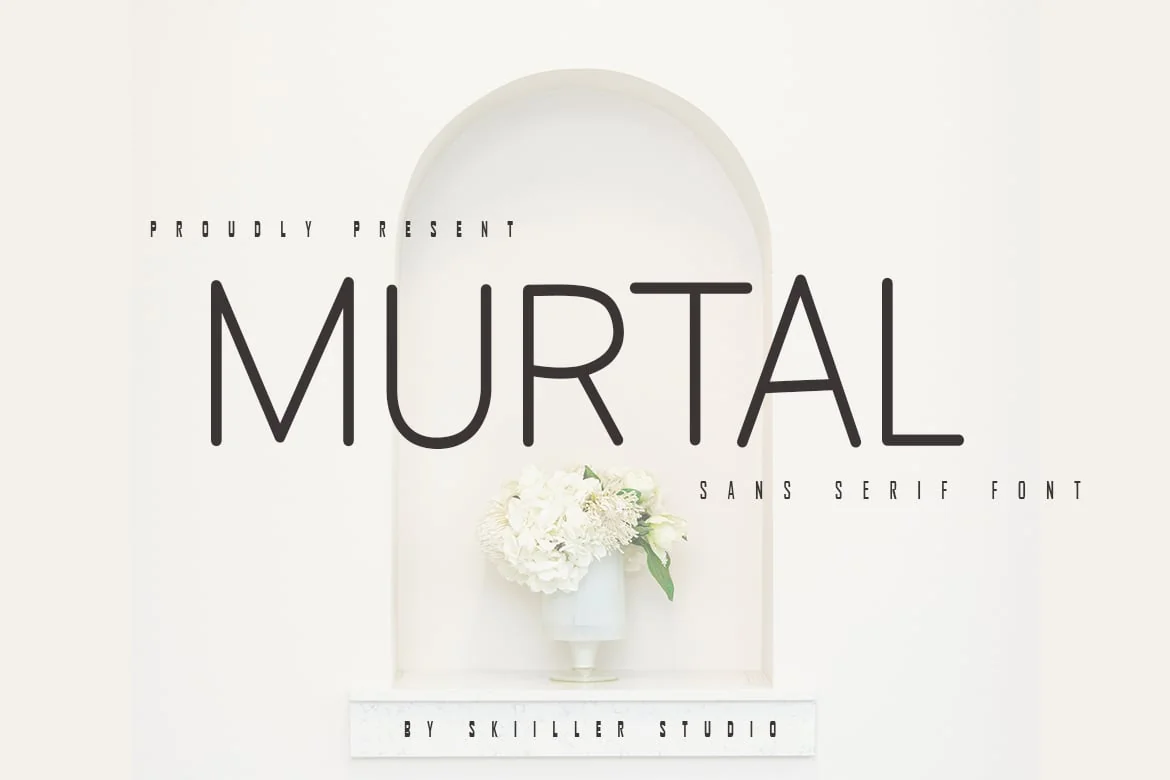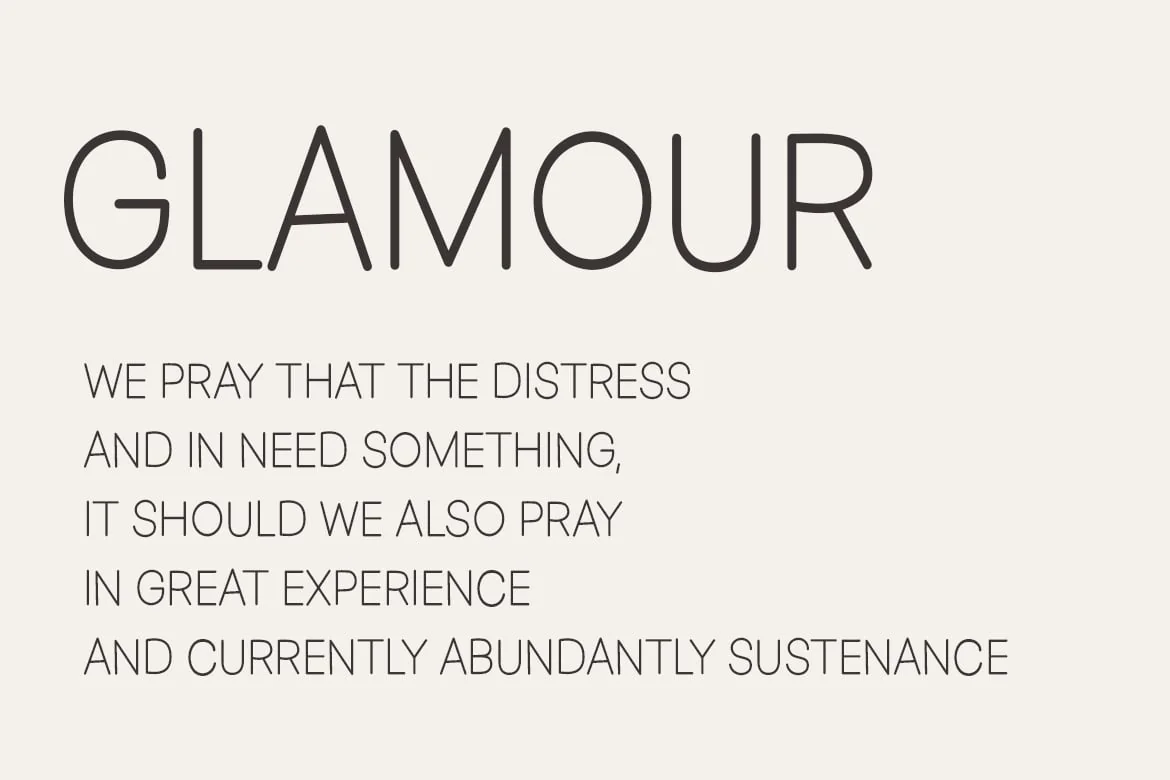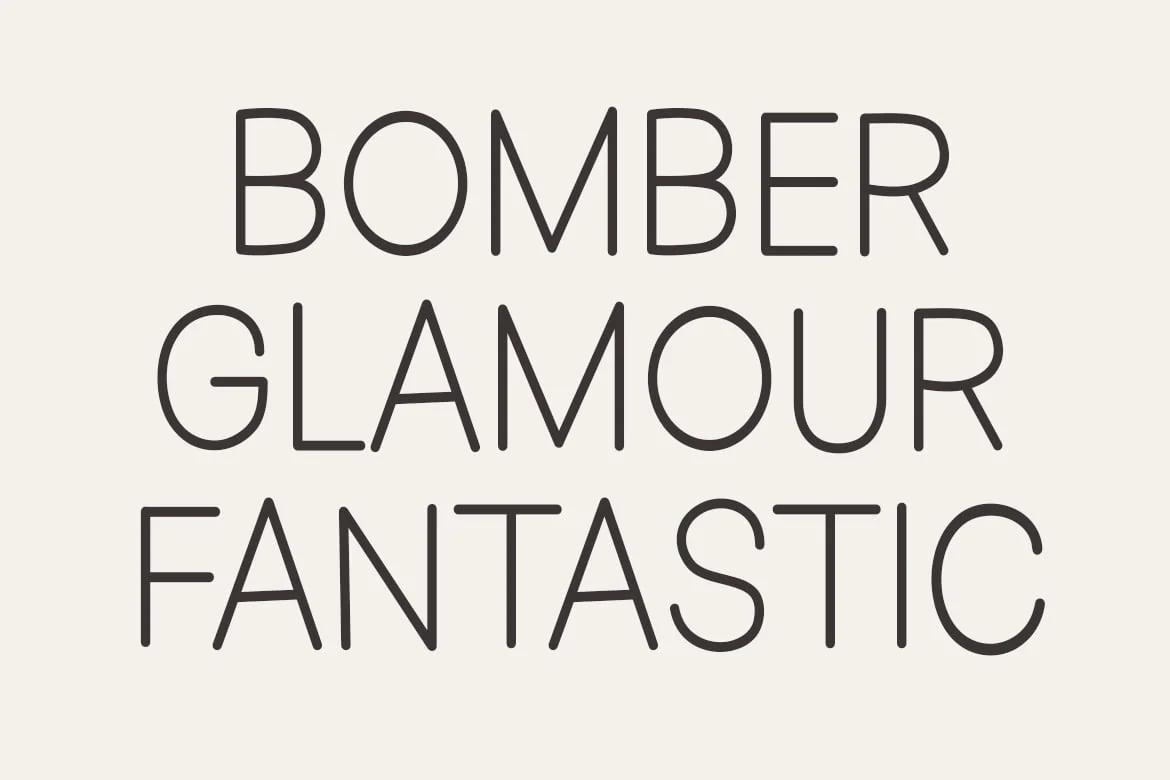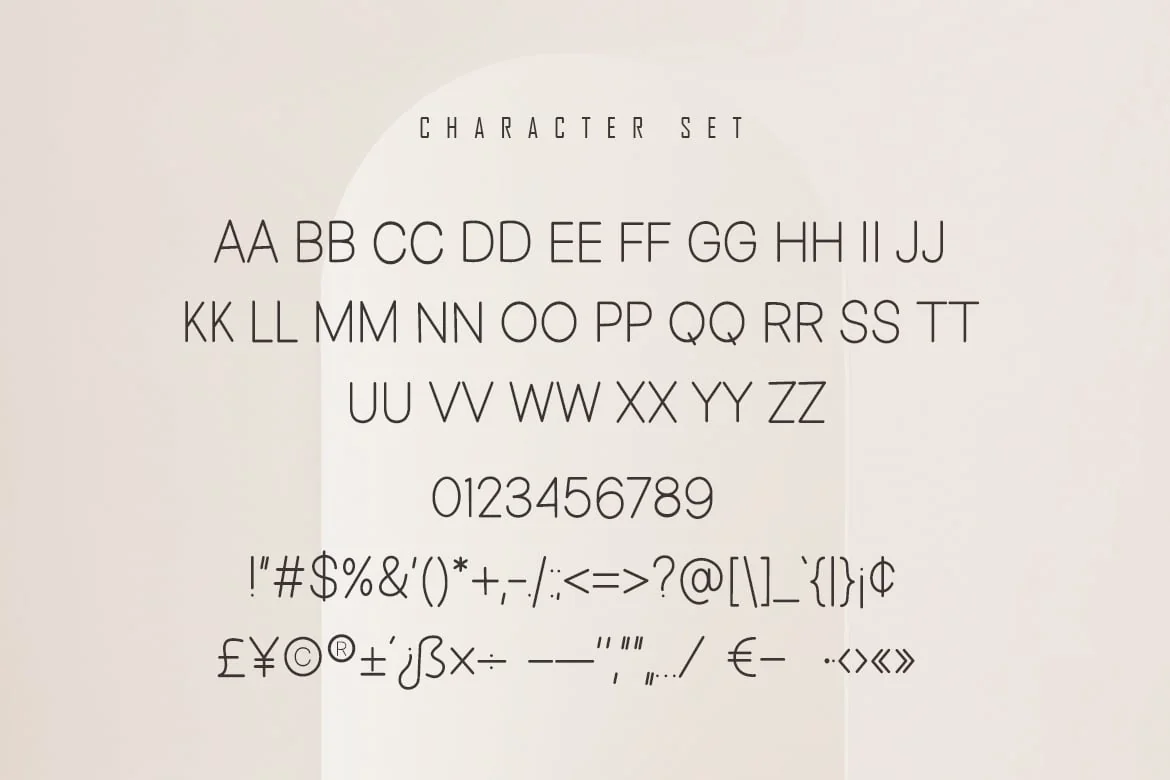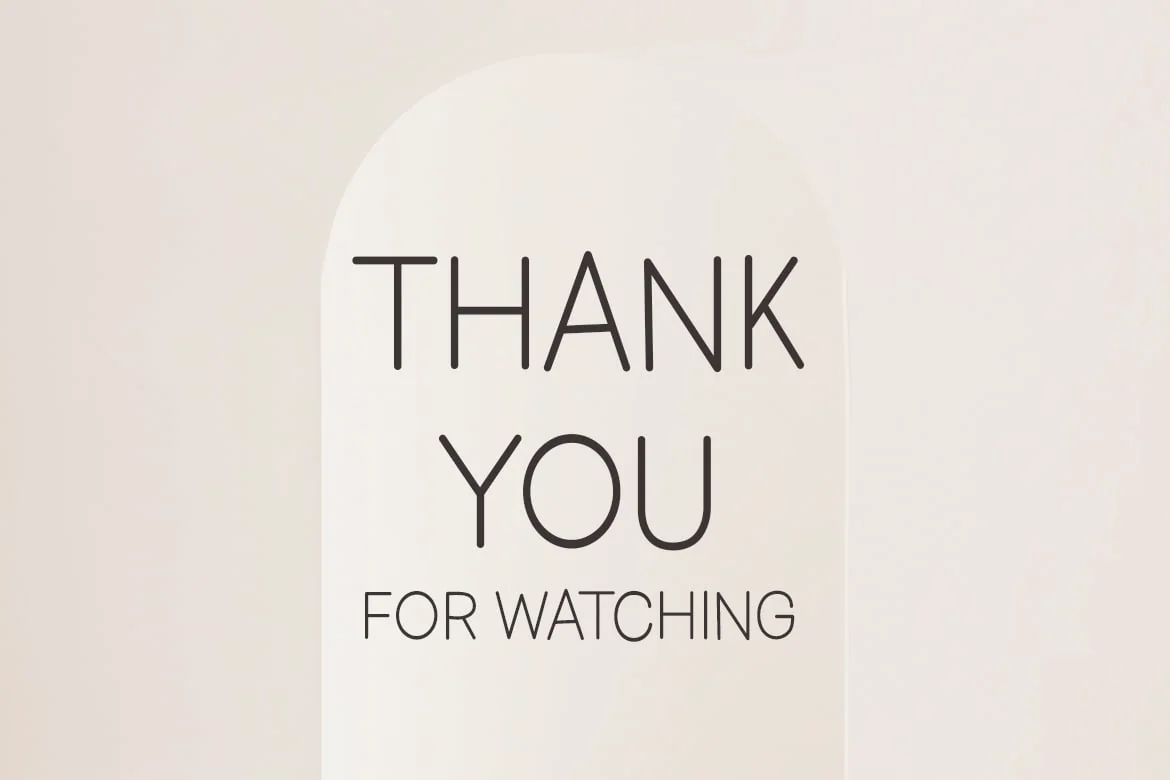
Murtal – Sans Serif Font
Murtal a condensed sans serif font. It has a elegant, classy look and modern. It’s a great font for fashion, Ligature Feature Opentype, apparel projects, signature, album cover, logo, branding, magazine, social media, & advertisements.